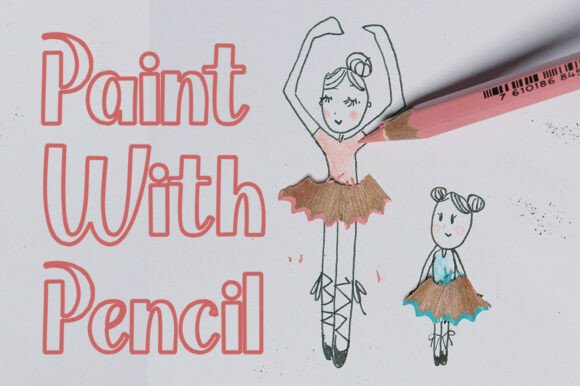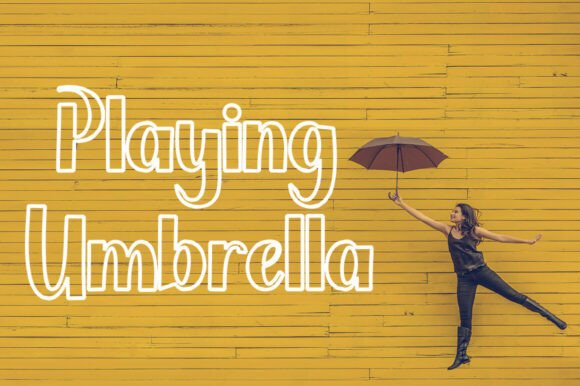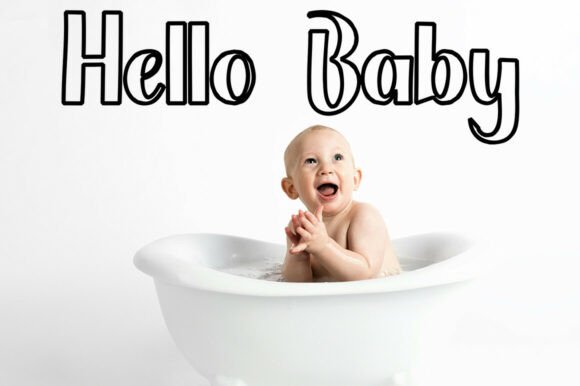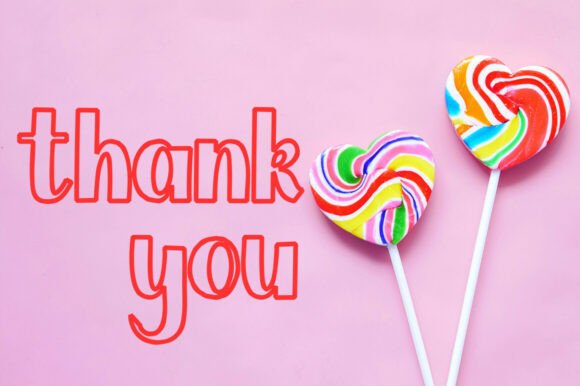
Introduction to Funline Font
Funline is a stylish and elegant shadow font with playful, decorative flourishes.
Its outlined letters and dynamic curves create a unique and eye-catching look, making it perfect for branding, invitations, posters, and creative projects that need a touch of sophistication with a modern twist .